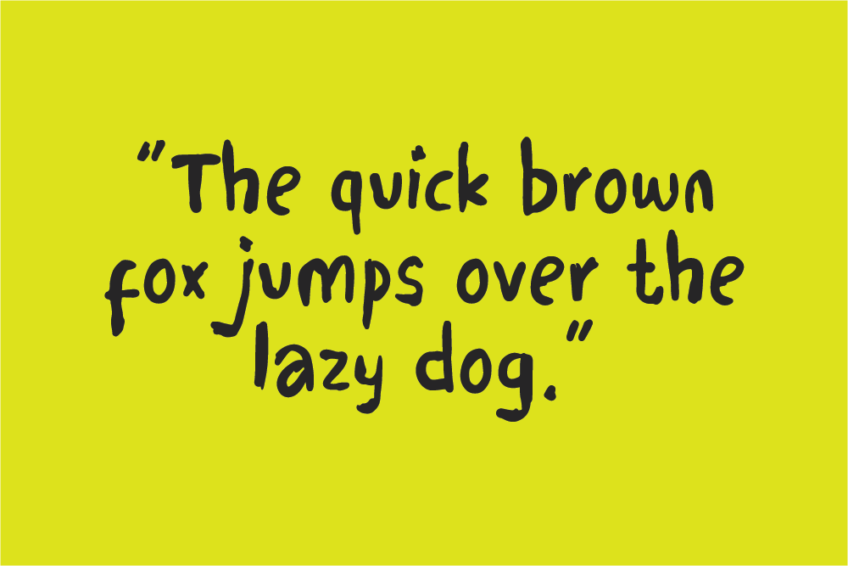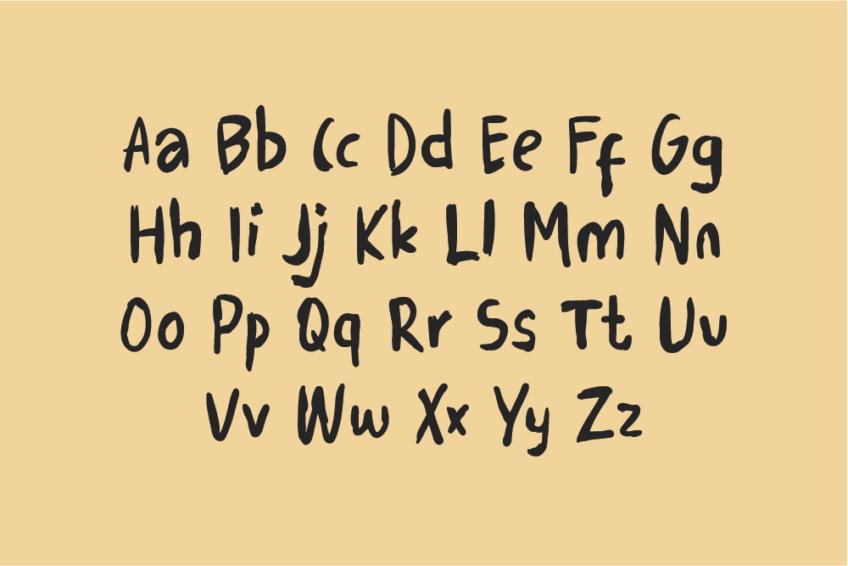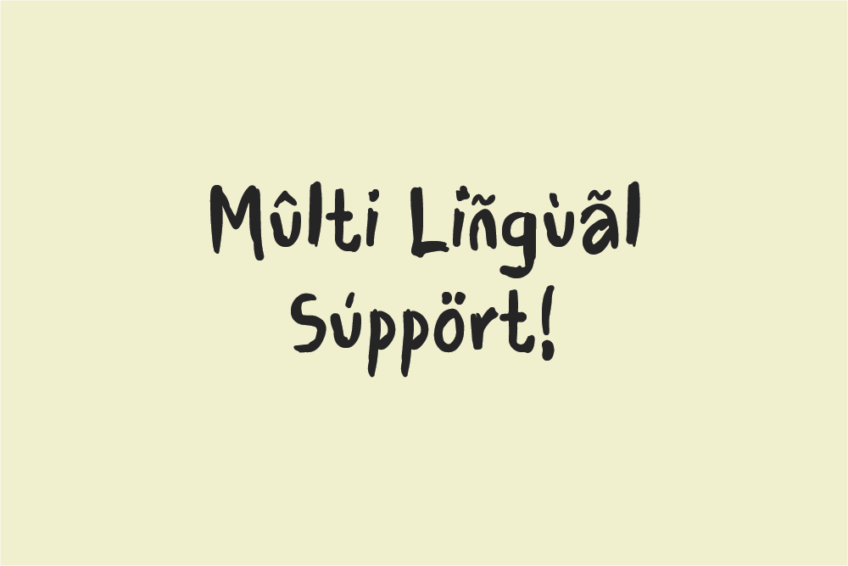
Image Preview of Sparkle Handwritten Font - A Handwriting Fonts for Cards
Sparkle HF
Illuminate your card designs with Sparkle Handwritten Font, a dazzling fonts for cards that adds a radiant touch to your creations. Each letter of Sparkle is crafted with precision, creating a unique blend of elegance and charm.
Whether you’re designing greeting cards, invitations, or special occasion cards, Sparkle Handwritten Font ensures that your words shine as bright as your sentiments.
Infuse a touch of radiance into your cards and let Sparkle fonts for cards turn every occasion into a sparkling celebration of creativity.